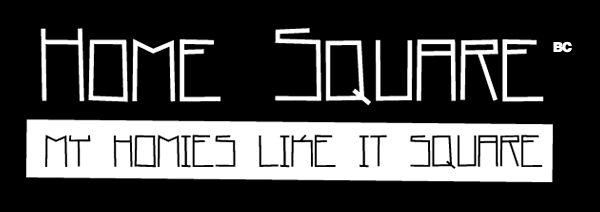
Home Square by BC of BC, credited as Dker, is a free angular techno display font with a spare, architectural profile. Thin strokes and sharply cut corners recall improvised metal signage.
For electronic music posters and architecture studio branding, the stark outlines suggest both experimental machinery and hand-cut signage, a useful link between those very different settings. In magazine features, album packaging, or arts publishing, the irregular capitals can function as illustrated lettering that echoes diagrams, floor plans, and angular photography.